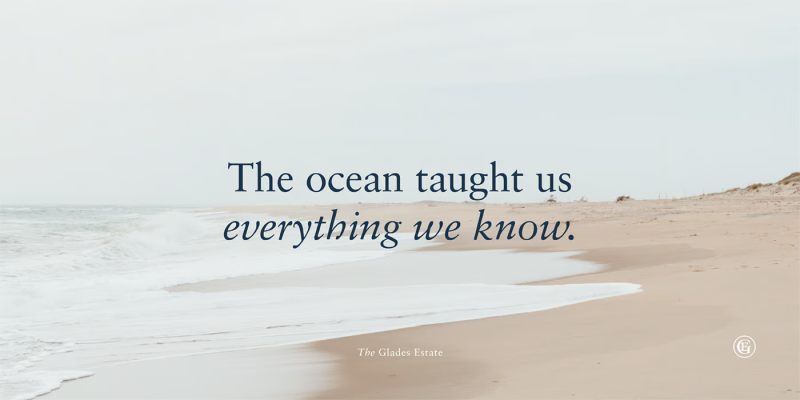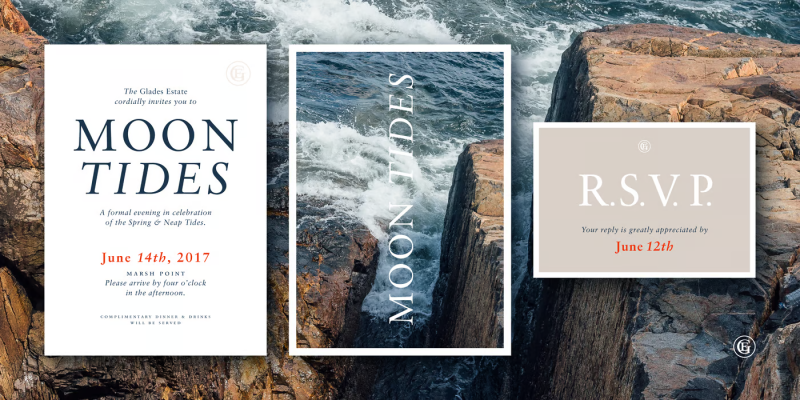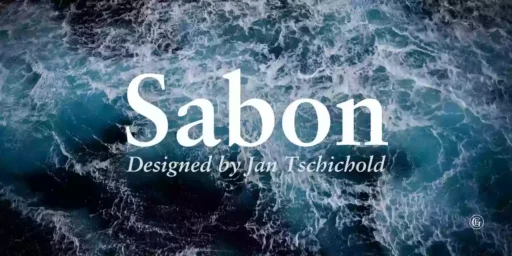
Sabon Font
Sabon font is one of the most interesting typefaces with a history dating back to the 16th century. The font was named after Jacques Sabon, a famous French type designer in the Renaissance period, and is a fine example of the work done by the typographer. Sabon’s work greatly influenced typography, and his further contributions influenced the following generations of typographers.
Jan Tschichold, a famous typographer of the 1960s, developed the Sabon font from the Renaissance period style, including Jacques Sabon’s works. It became Tschichold’s challenge to give a contemporary look to these fonts, and this is how the Sabon font quickly became popular due to its classy and clear look. The Sabon font has clean lines, smooth and slightly rounded corners on the serifs, and equal margins between the thick and thin parts of strokes.
Sabon features a tall x-height, which makes the font look contemporary and unenclosed. X-height is the height of the lowercase letters compared to the height of the uppercase letters of the given typeface. Sabon has a rather high x-height, which makes the font look quite harmonious and quite easy to read both on paper and screens.
The light and dark parts of the letterforms of Sabon are slightly different, which gives it a traditional and beautiful style that is suitable for many types of designs. One of the characteristics of Sabon is the presence of strong serifs, small strokes coming out at the end of the main lines of the lettering. The basis of the letters in Sabon is rather thin, but the serifs are clearly different, and the typeface looks quite graceful and elegant.
It is quite famous in the world of print design and publishing and rapidly became highly popular mostly due to its remarkable readability and the timeless aesthetics. Designers and publishers found the font easy to use and liked the fact that it is ideal to use in any project as it was modern yet classic. Due to the font’s elegant serifs and harmonious dimensions, it is more suitable for the body texts of books, magazines, and newspapers, for which readability is a priority.
Moreover, it has a fine contrast between the thick and thin lines that provided a feeling of movement and vitality and that is why it is an ideal choice for the headlines and display purposes. Sabon font has played a very significant role when it comes to print design and publishing. Thus, the font became popular and over the years, the font’s aesthetic remains relevant in the graphic design industry even up to the present.
Both designers and publishers keep on using the Sabon font due to the clarity of the font, and its ability to give a timeless look to any project made with it, making it preferred for various uses.
Where Sabon Font works best
Sabon Font gives long-form text a classic, trustworthy rhythm — ideal for magazine spreads, annual reports and book interiors.
Pair Sabon Font with generous letter-spacing for wordmarks in fashion, hospitality, wine and jewellery branding.
Use Sabon Font for slide titles in Keynote, PowerPoint or Google Slides to add authority without looking dated.
What is Sabon Font good for?